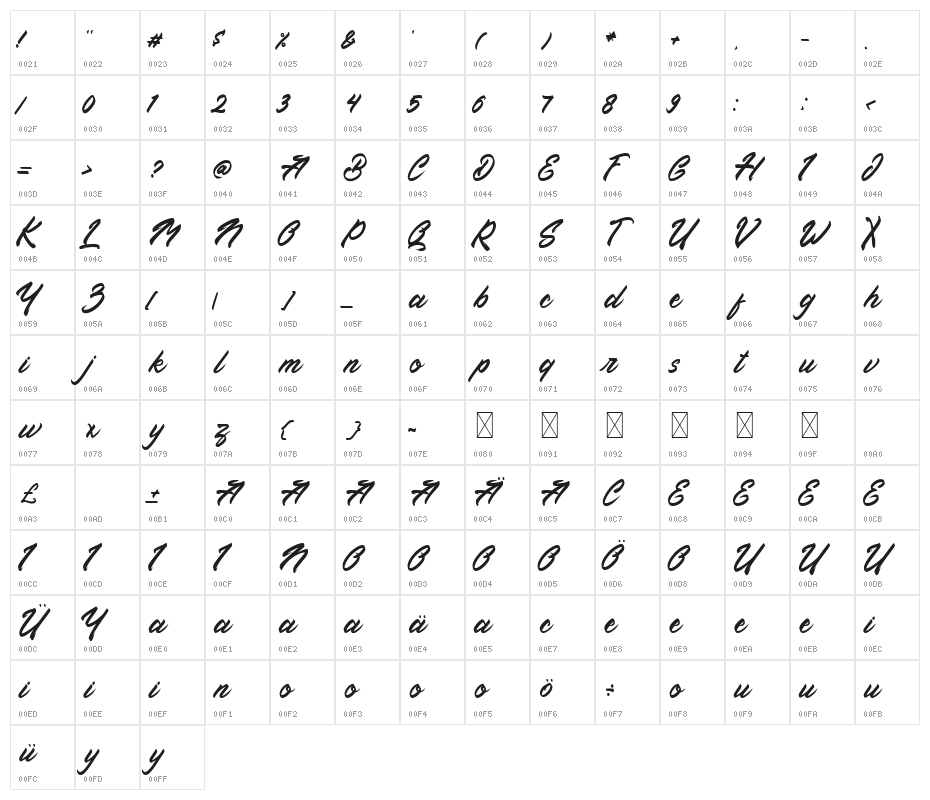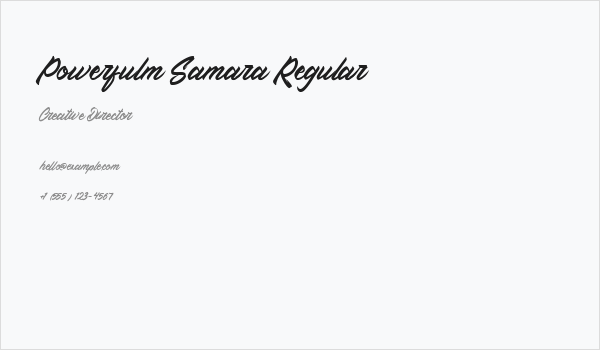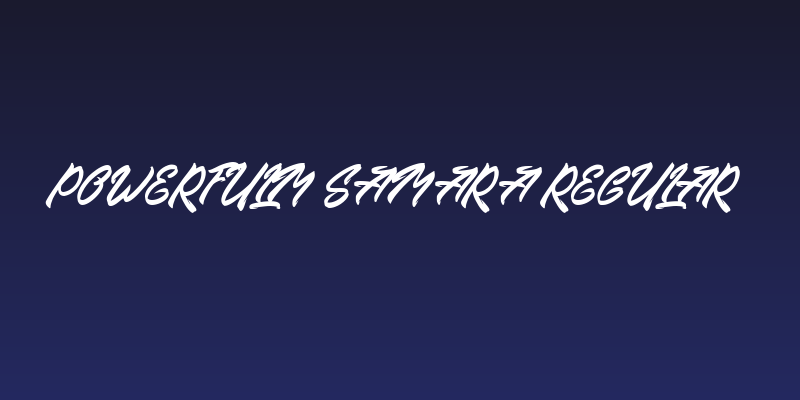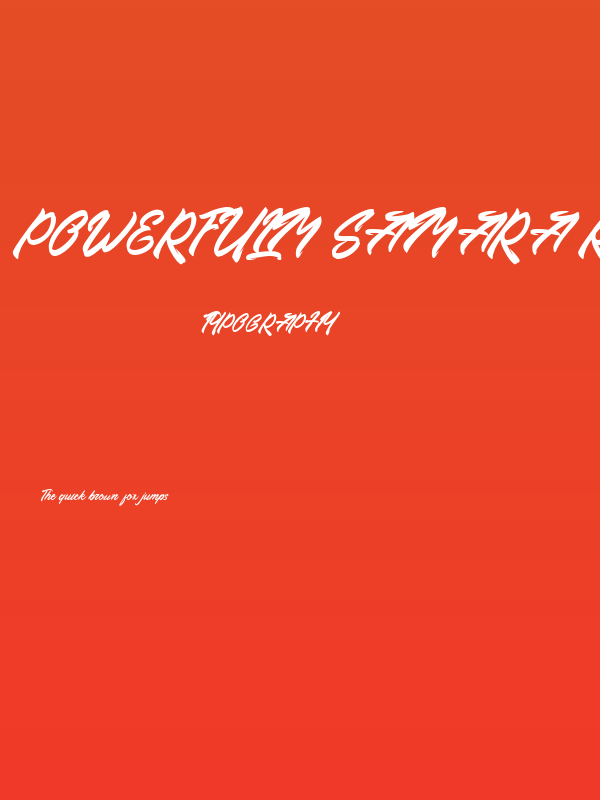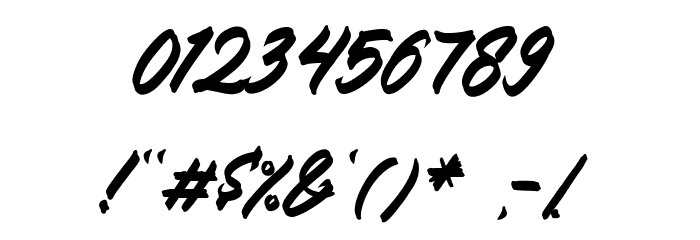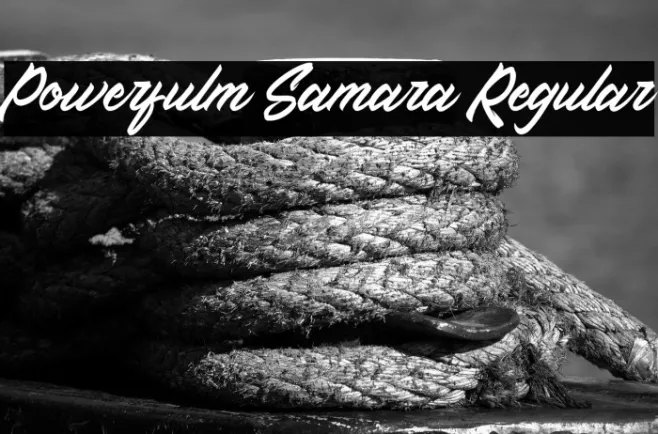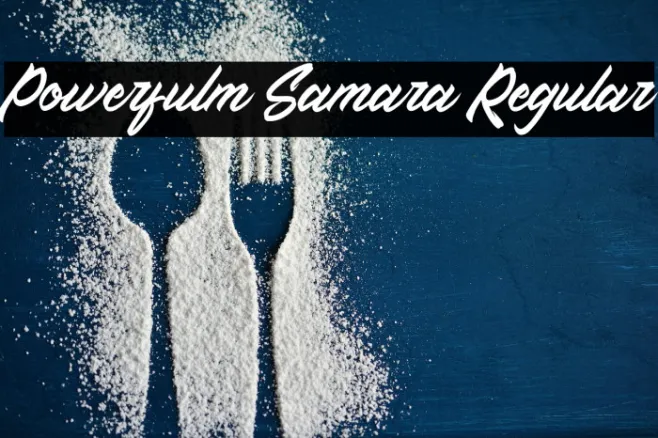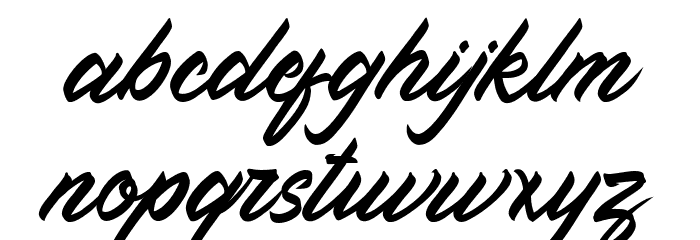
Powerfulm Samara Regular Font
Powerfulm Samara Regular Description
This font features a bold and dynamic script style with a strong presence. The characters are interconnected with smooth, flowing strokes that give it a sense of motion and elegance. The uppercase letters are particularly striking, with exaggerated curves and flourishes that add a decorative touch. The lowercase letters maintain a consistent style, complementing the uppercase with their own graceful loops and swirls. The numbers and special characters are equally expressive, ensuring a cohesive look across all elements. This font's boldness and fluidity make it ideal for projects that require a touch of sophistication and flair.